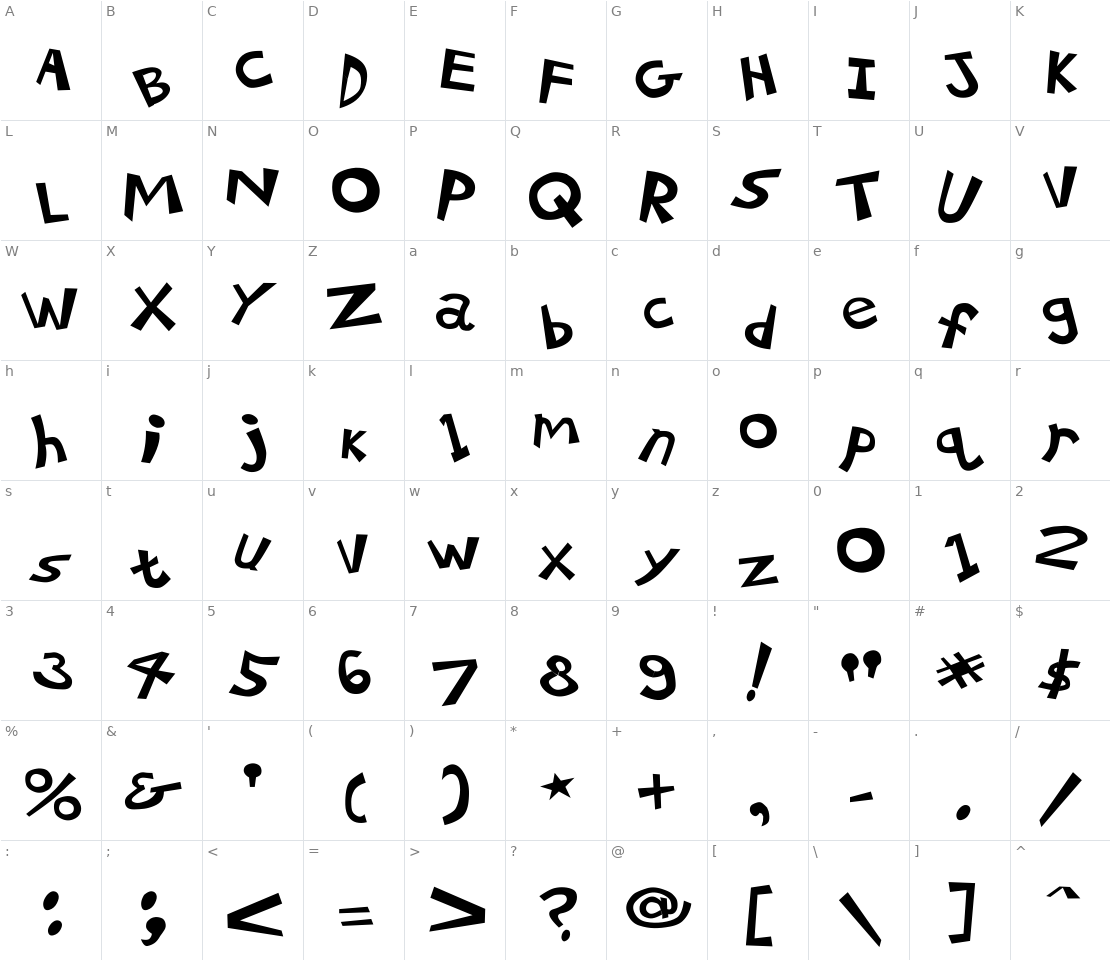
21 Kilobyte Salute
by Eric Perlin
21 Kilobyte Salute is a thick, casual handwritten face from Eric Perlin with bold strokes and noticeably irregular letterforms that give it a loose, unrestrained personality. The letters feel like they were scrawled quickly with a chunky marker, each one slightly different in weight and angle. It works best in headlines and short text where its quirky, playful energy can come through without wearing thin.